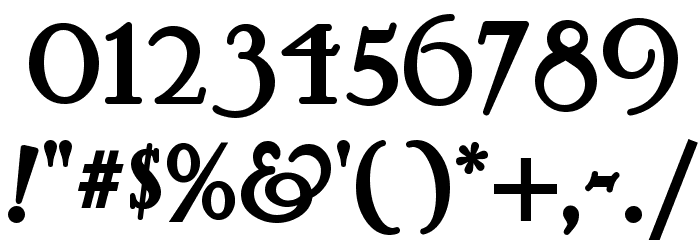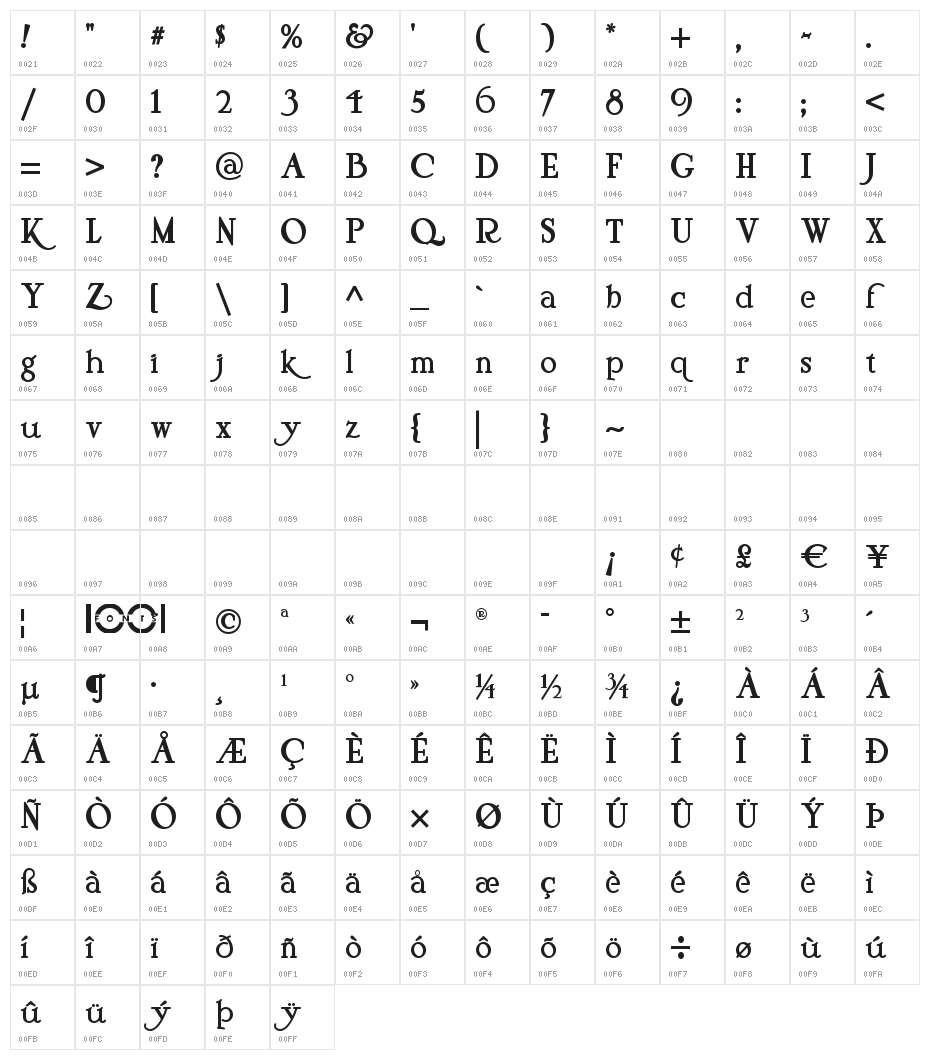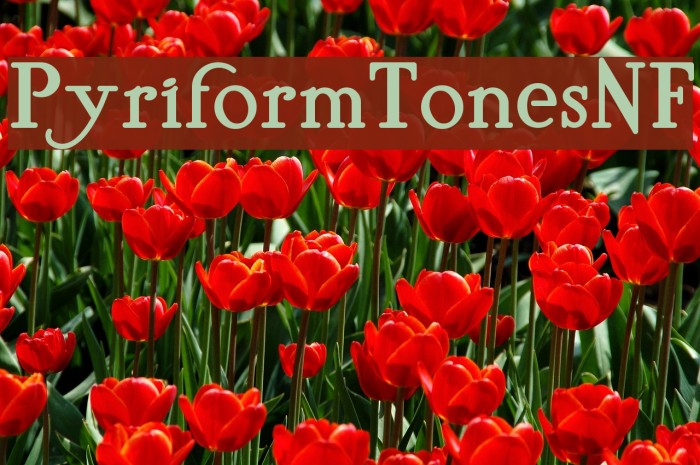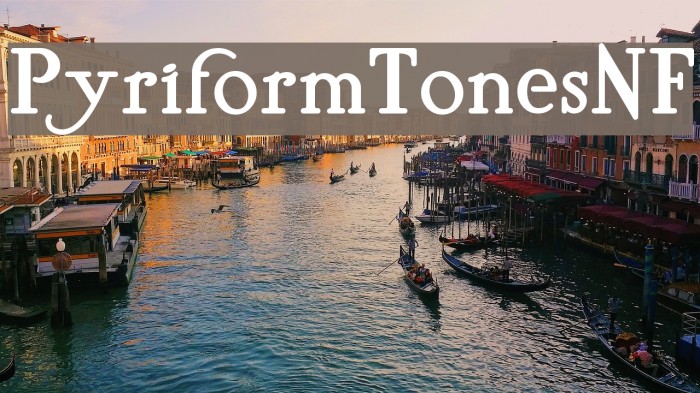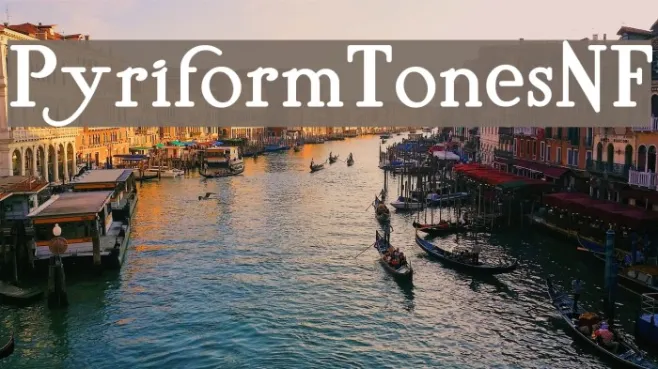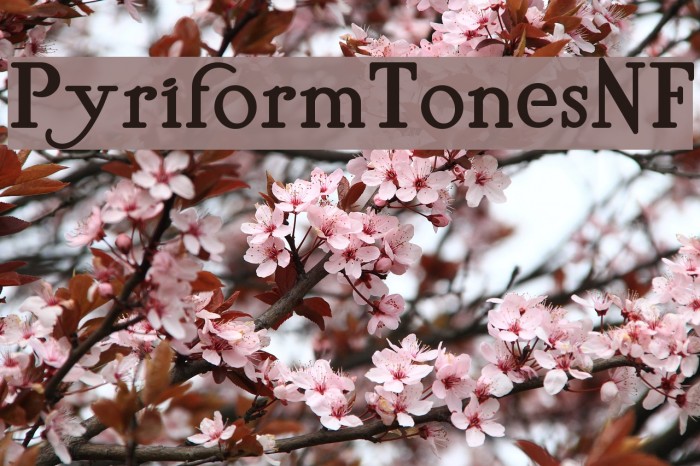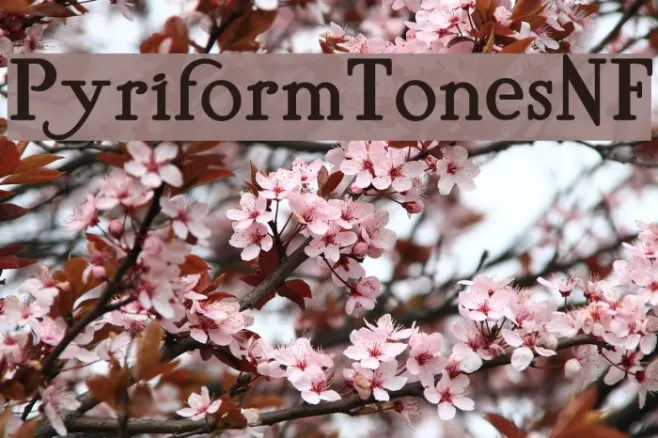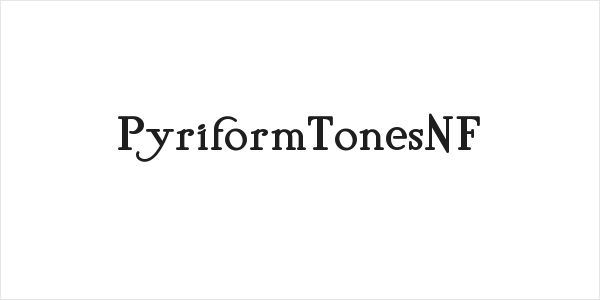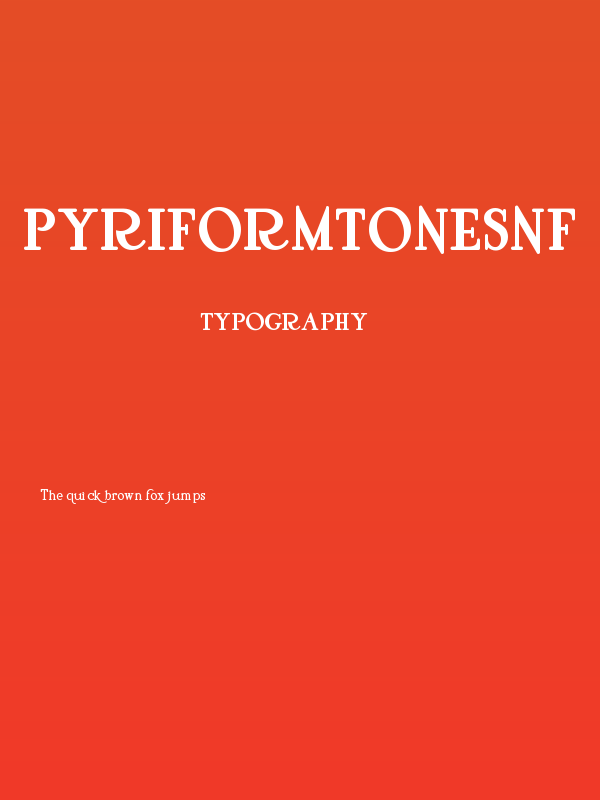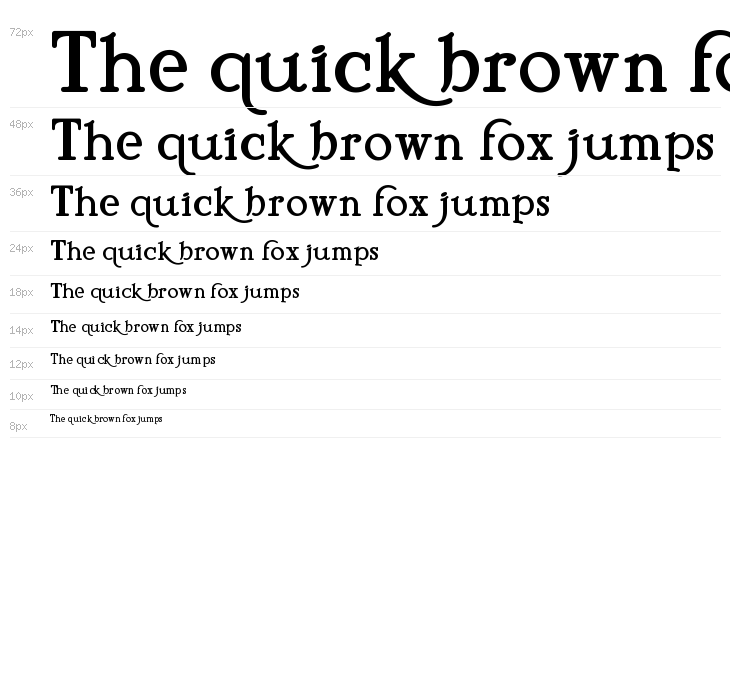
PyriformTonesNF Font
PyriformTonesNF Description
This font features a classic serif style with a distinctive elegance and a touch of whimsy. The uppercase letters are bold and commanding, with a slight curvature that adds a unique flair, particularly noticeable in the 'R' and 'Q'. The lowercase letters maintain a consistent style, with rounded edges and a playful yet sophisticated appearance. The numerals are clear and easy to read, with a traditional design that complements the overall aesthetic. Special characters are well-integrated, maintaining the font's cohesive look. This font is versatile, suitable for both formal and creative projects, offering a balance of readability and artistic expression.
| Use Case | Headlines, Logos, Editorial design |
| Proposed Projects | Ideal for branding, editorial design, invitations, and packaging. |